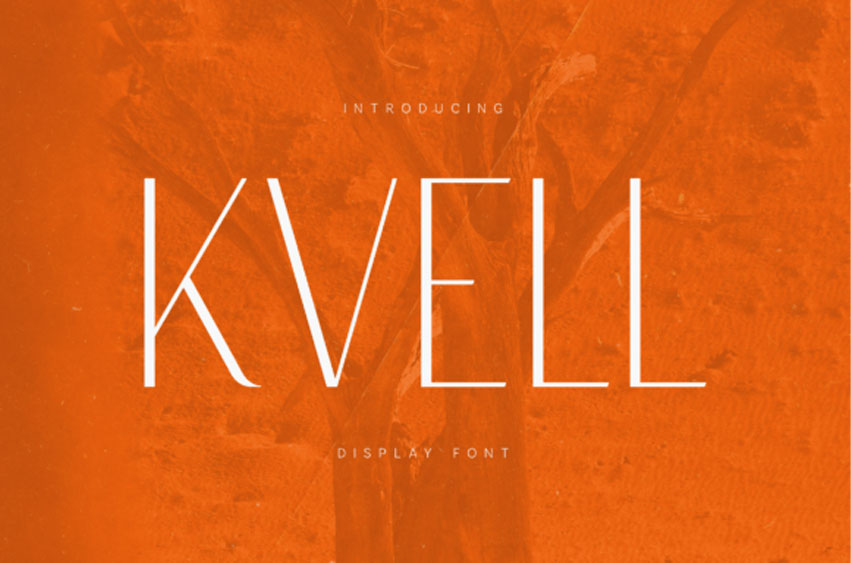
Kvell Font
Kvell Font is a refined minimal display typeface designed with elegance, clarity, and modern visual balance. This font brings a sense of elegance and modern sophistication to headlines, posters, editorial layouts, branding systems, magazine compositions, visual identities, and contemporary graphic design.
With its elegant minimal structure and contemporary display style, Kvell provides designers with a modern typographic tool for creating clean, stylish, and visually refined typography compositions.